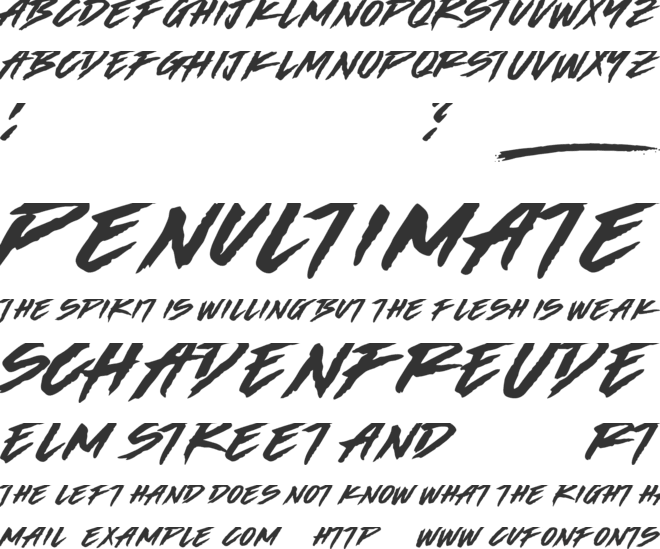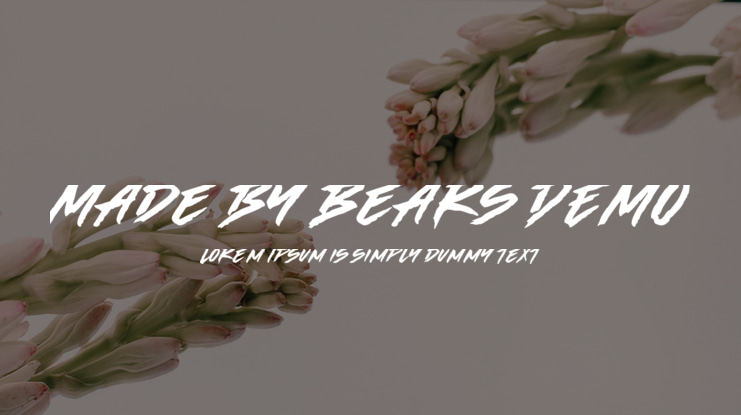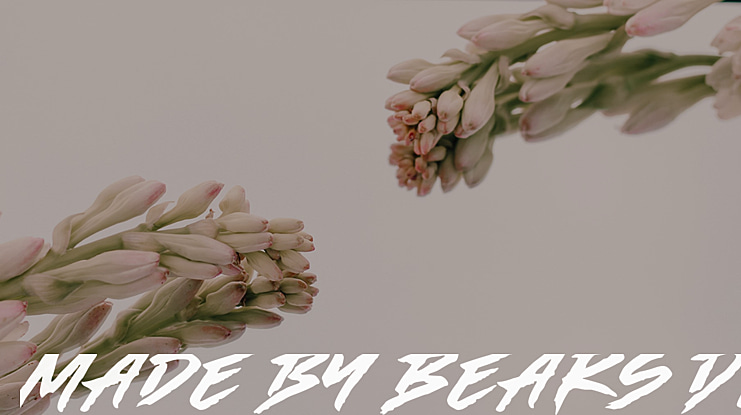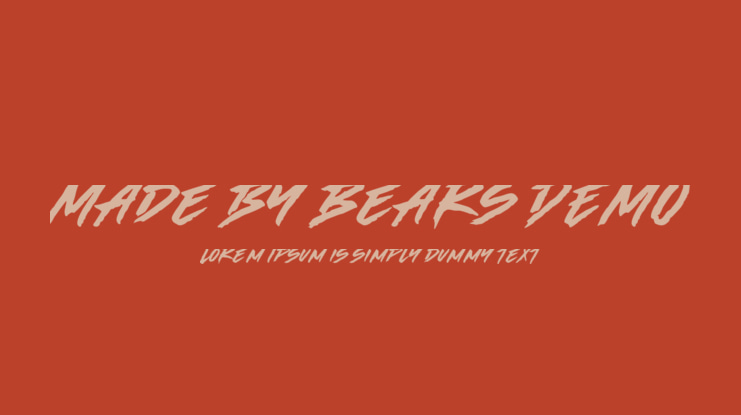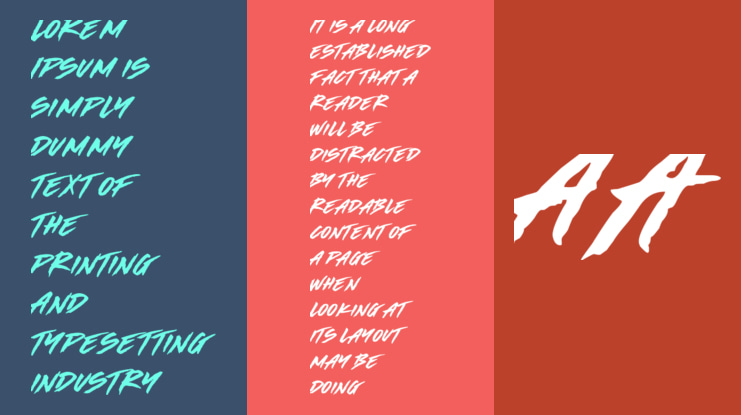
Made by Bears DEMO Font
About this font:
Branding must come with an attitude. Whether promoting your band or making activist posters online, treat your art like it will gonna bite something. Our new creation Made by Bears will hunt every latent designs and equip it with all the spikes it needed!